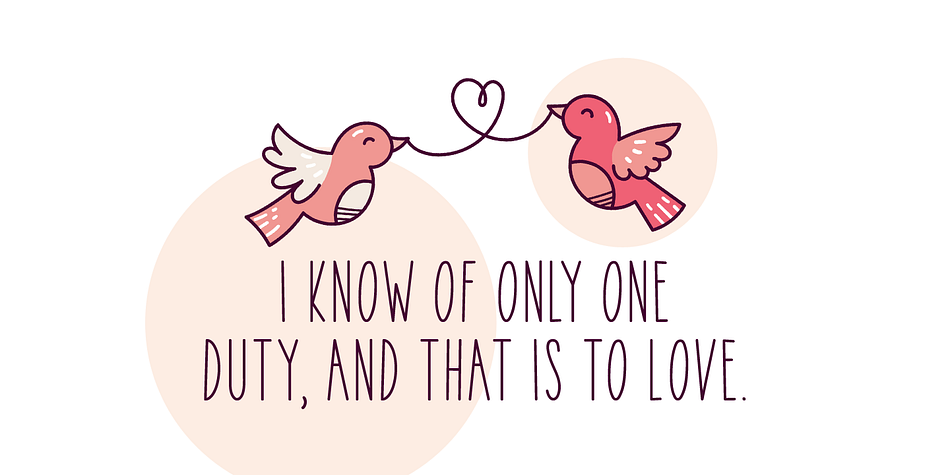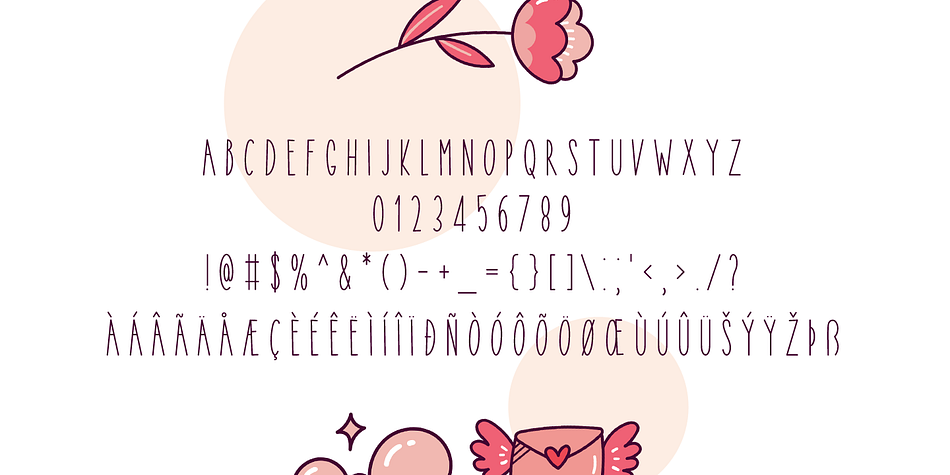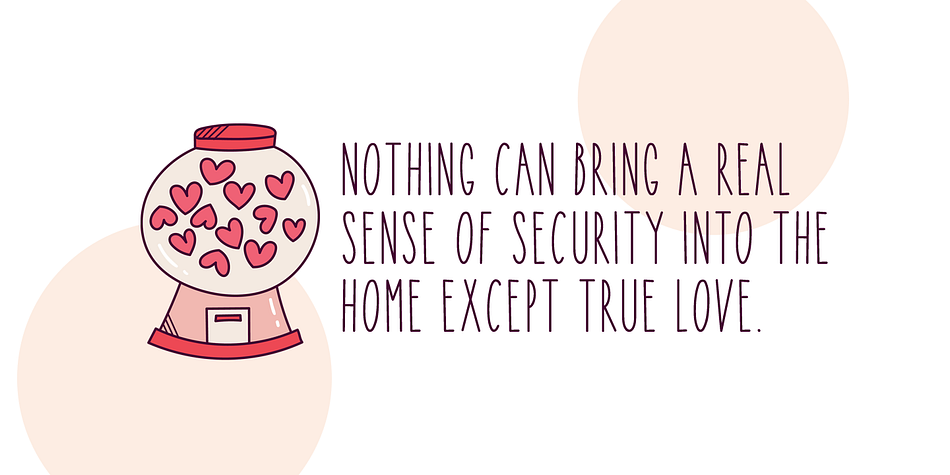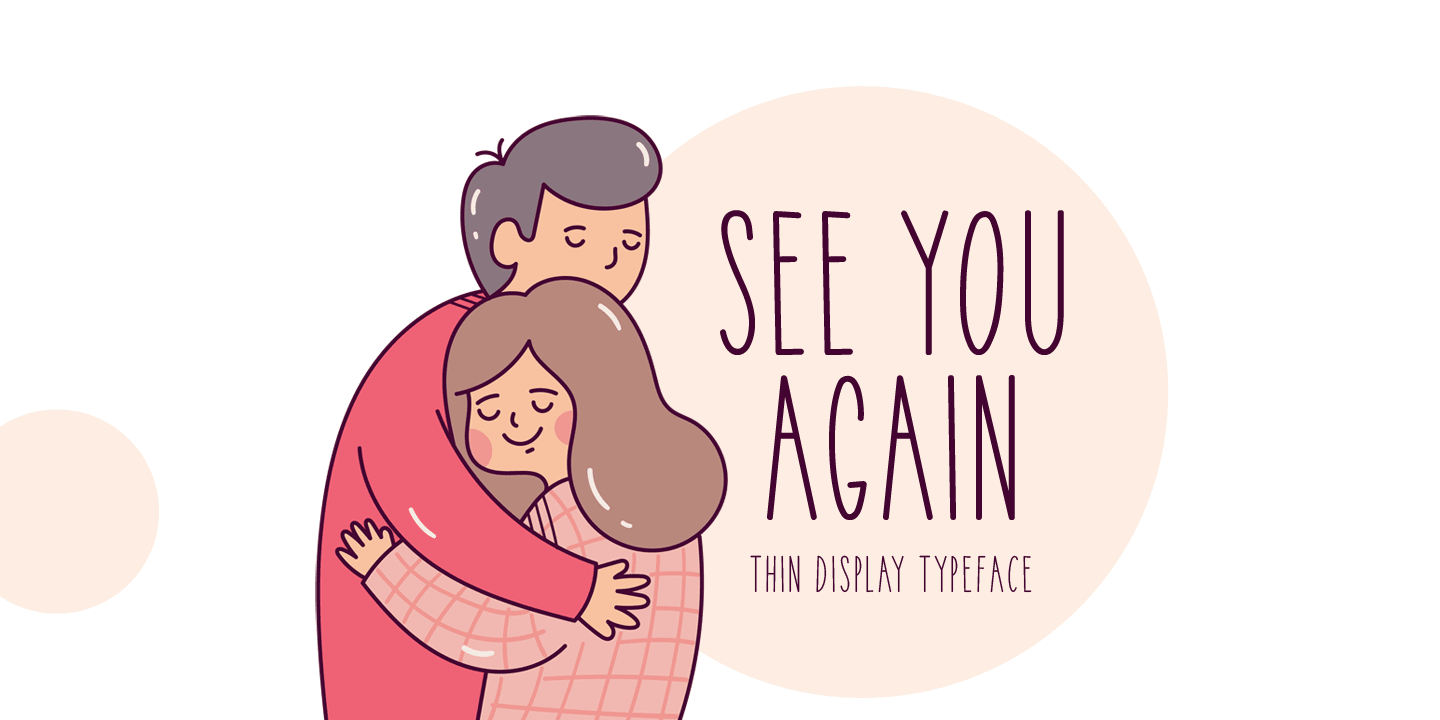
SEE YOU AGAIN
Designed by Md. Shohail Bhuiyan, See You Again is a hand display and hand drawn font family published by Seemly Fonts.
See You Again is a brand new and thin lettered display font. See You Again is perfectly suited for stationery, logos, t-shirt, paper, print design, website header, photo frame, flyer, music cover, poster, image slider, and much more.
Foundry Seemly Fonts
Styles Hand Display, Hand Drawn
Designer Md. Shohail Bhuiyan